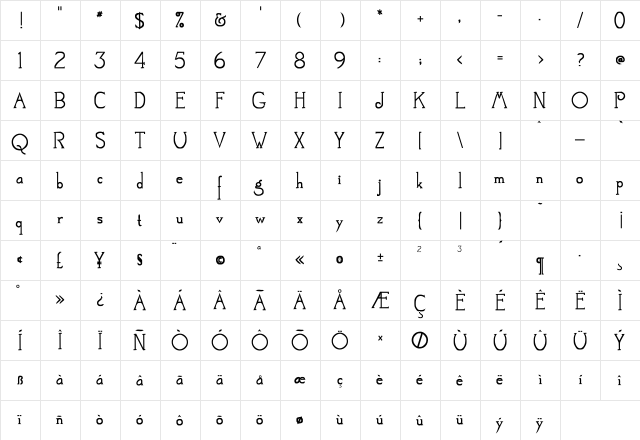
Mestra Free Font
Mestra
Design Context for Mestra
Mestra is a composed and adaptable typeface that performs quietly and consistently across a wide range of design contexts.